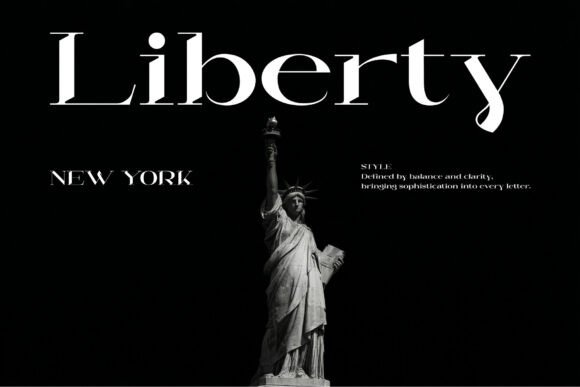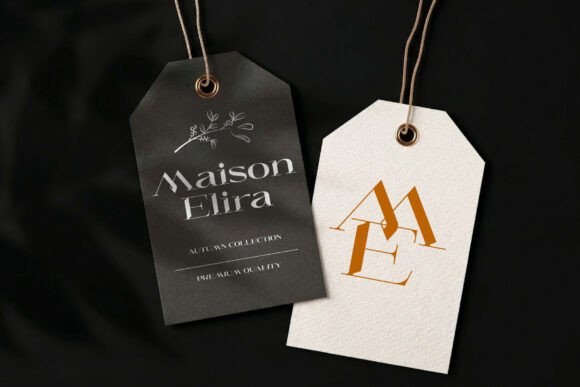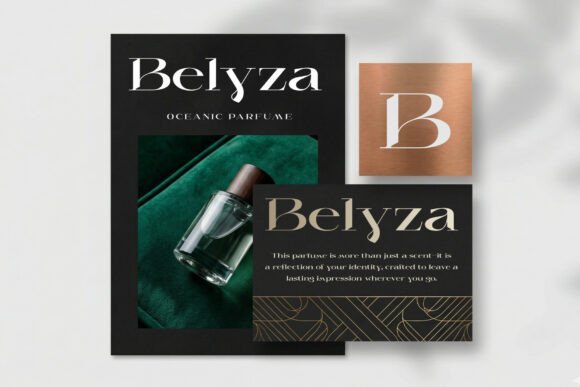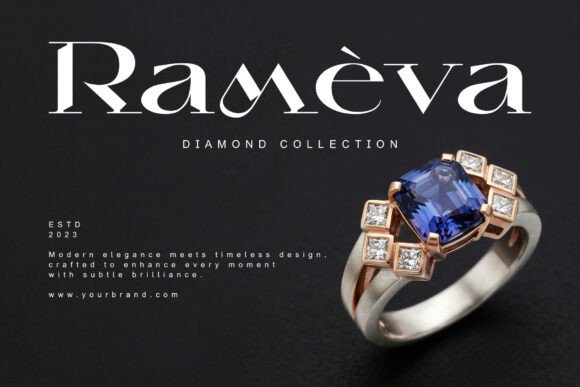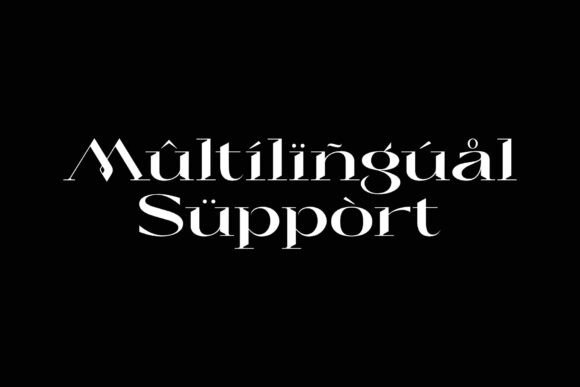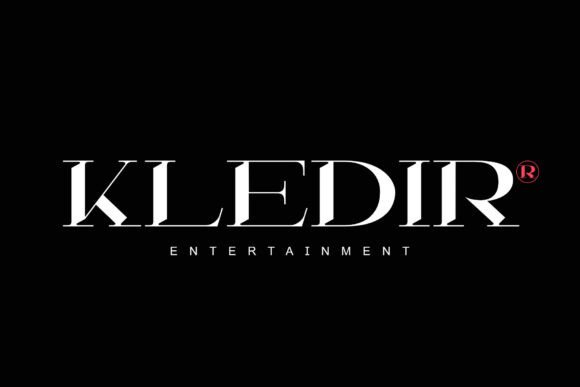
Ginka Font: Elevate Your Design with Sophistication and Elegance
In the world of typography, a font can make or break a design. When it comes to creating a lasting impression, the right font choice is crucial. Introducing Ginka, a refined serif typeface that embodies elegance, clarity, and sophistication. Designed to bring a touch of luxury to your creative work, Ginka is the perfect choice for designers and crafters seeking a modern yet timeless aesthetic.
The Art of Elegance: Ginka’s Design Philosophy
Ginka’s design is centered around the principles of clean structure, smooth curves, and balanced proportions. This harmonious blend of elements results in a font that exudes refinement and poise. The subtle contrast between thick and thin lines adds a level of sophistication, making Ginka suitable for a wide range of design applications, from luxury branding to editorial design.
Key Features of Ginka Font
- Clean Structure: Ginka’s structure is meticulously crafted to provide a clear and readable appearance, even at small font sizes.
- Smooth Curves: The font’s curves are designed to be smooth and flowing, adding a touch of elegance to your typography.
- Balanced Proportions: Ginka’s letterforms are carefully proportioned to ensure a harmonious balance between width and height, creating a visually appealing text.
- Subtle Contrast: The font’s subtle contrast between thick and thin lines adds a level of sophistication and refinement.
- Distinctive Letterforms: Ginka’s letterforms are uniquely designed to provide a distinctive and recognizable appearance.
Why Choose Ginka Font?
Ginka offers a range of benefits that make it an ideal choice for designers and crafters. Here are just a few reasons why:
- Elegant Aesthetic: Ginka’s refined design makes it perfect for projects that require a sophisticated and polished appearance.
- Versatility: The font’s clean structure and balanced proportions make it suitable for a wide range of design applications, from print to digital media.
- Readability: Ginka’s clear and readable appearance ensures that your text is easily legible, even at small font sizes.
- Attention to Detail: The font is carefully crafted with attention to detail, ensuring a high level of quality and consistency.
Using Ginka Font in Your Design Projects
Ginka is an incredibly versatile font that can be used in a variety of design projects. Here are a few ideas to get you started:
- Luxury Branding: Use Ginka to create a sophisticated brand identity that exudes elegance and refinement.
- Editorial Design: Ginka is perfect for editorial design projects, such as magazines, newspapers, and books.
- Packaging Design: The font’s clean structure and balanced proportions make it suitable for packaging design projects, such as product labels and packaging materials.
- Digital Media: Ginka can be used in digital media, such as websites, social media graphics, and presentations.
| Font Name | Ginka Font |
| Author | Sealoung |
In conclusion, Ginka is a refined serif typeface that offers a sophisticated and elegant aesthetic, making it perfect for designers and crafters seeking a modern yet timeless font. With its clean structure, smooth curves, and balanced proportions, Ginka is suitable for a wide range of design applications. Whether you’re working on a luxury branding project, editorial design, or packaging design, Ginka is sure to elevate your design and leave a lasting impression.
Get Ready to Elevate Your Design with Ginka